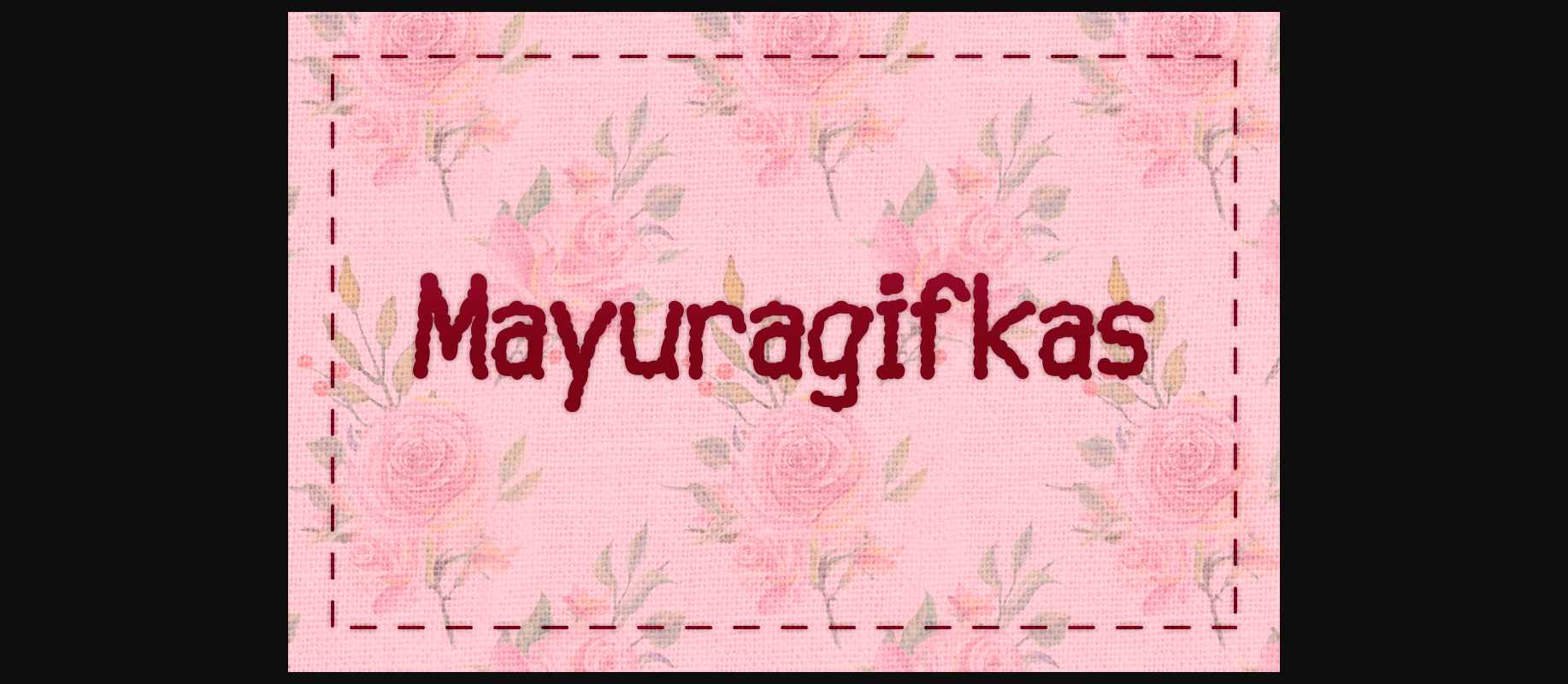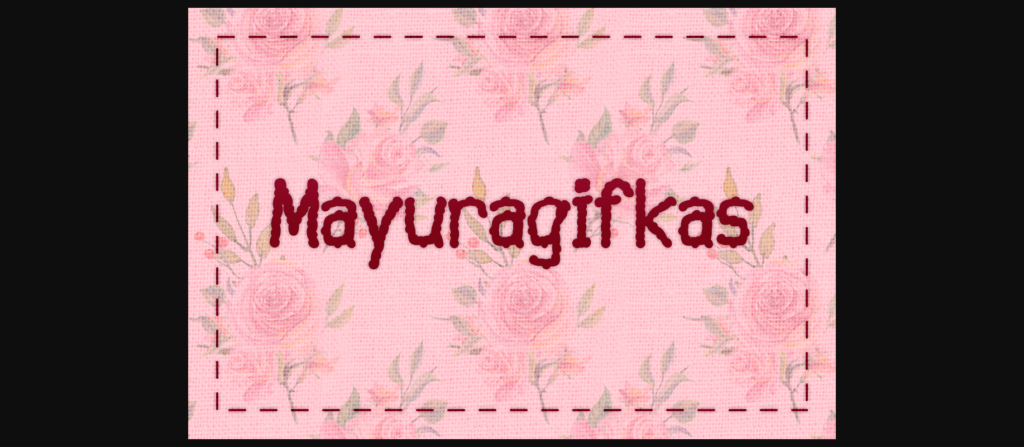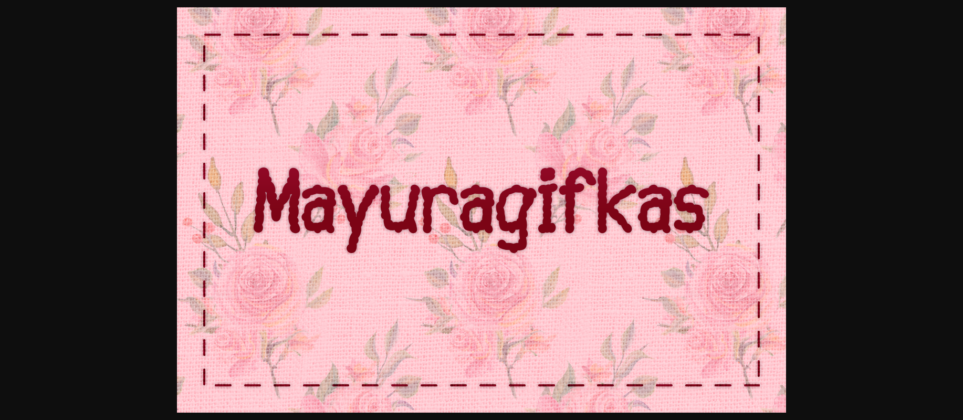
Mayuragifkas Font
About Mayuragifkas Font
Mayuragifkas is a decorative font meant to replicate the feel of stitch work. This fun font can be used for a variety of projects to give you a relaxed vibe.